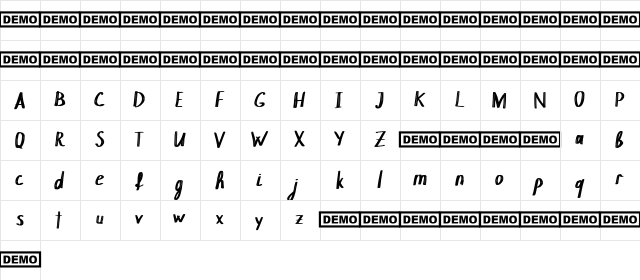
Chokle Regular Font Preview
Chokle Regular
Chokle Regular Font Details
| Foundry | Mr.Typeman |
| Designer | Mr.Typeman |
Design Context for Chokle Typeface
Chokle is a composed and adaptable typeface that performs quietly and consistently across a wide range of design contexts.